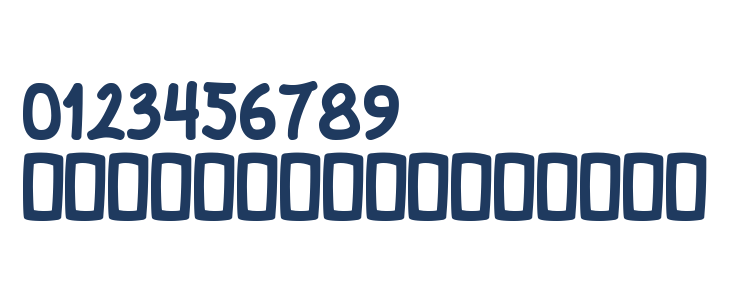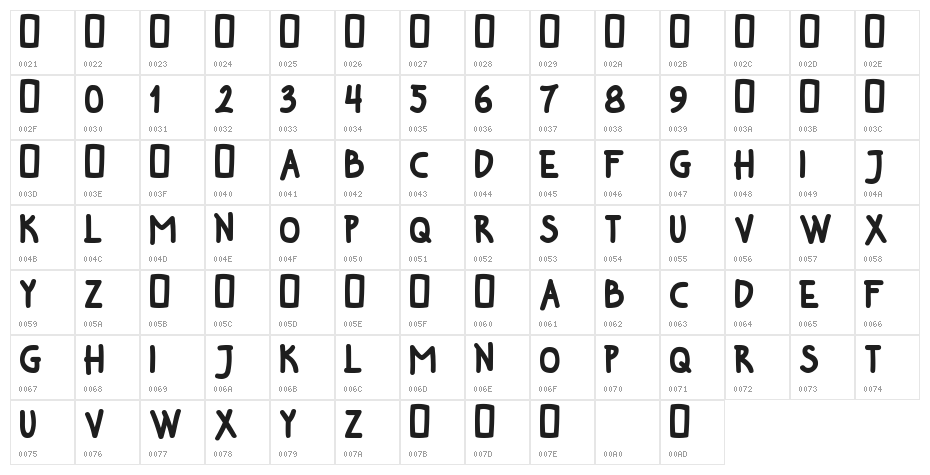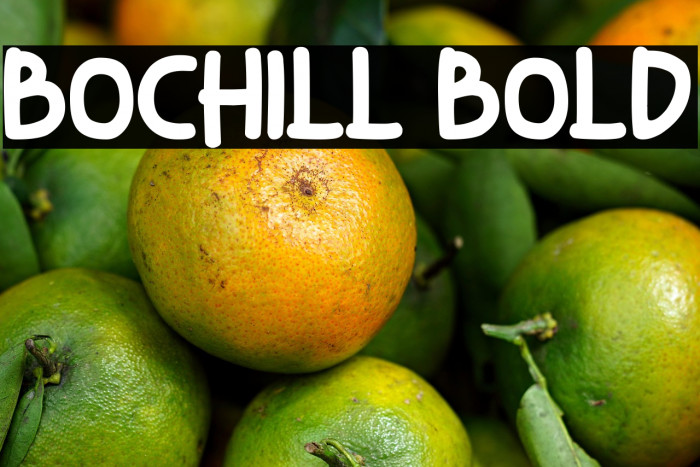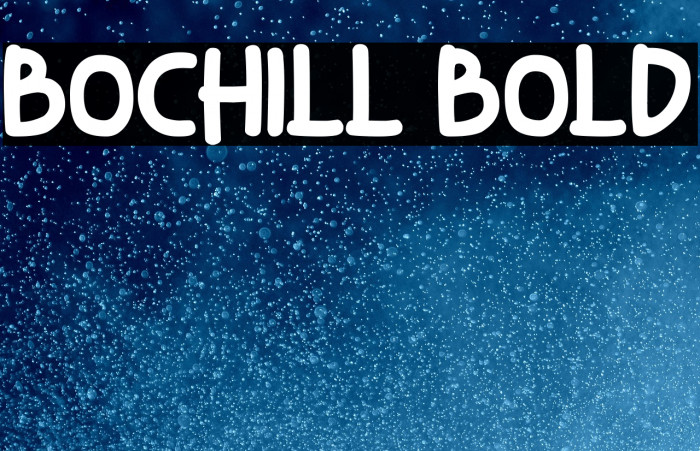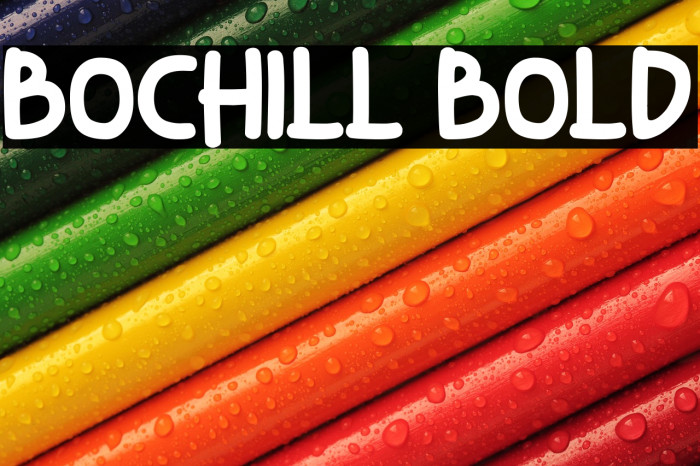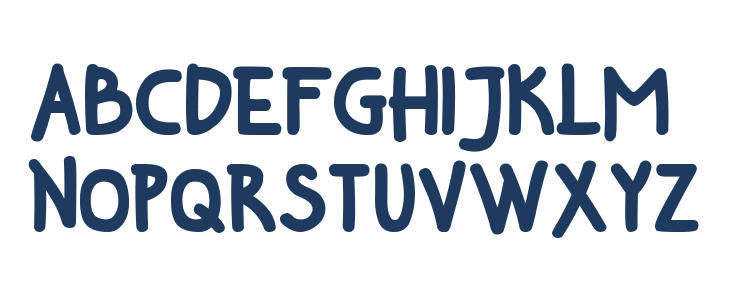
Bochill Bold Font
Bochill Bold Description
This font features a bold and playful design, characterized by its rounded and slightly irregular letterforms. The strokes are thick and consistent, giving it a strong presence on the page. The characters have a hand-drawn quality, adding a touch of whimsy and friendliness. The uppercase and lowercase letters maintain a uniform height, enhancing readability. The numerals are equally bold, matching the style of the alphabet. Overall, this font exudes a casual and approachable vibe, making it suitable for a variety of creative applications.
| Overall Style | Playful, Casual |
| Proposed Projects | Ideal for children's books, playful branding, posters, and social media graphics. |